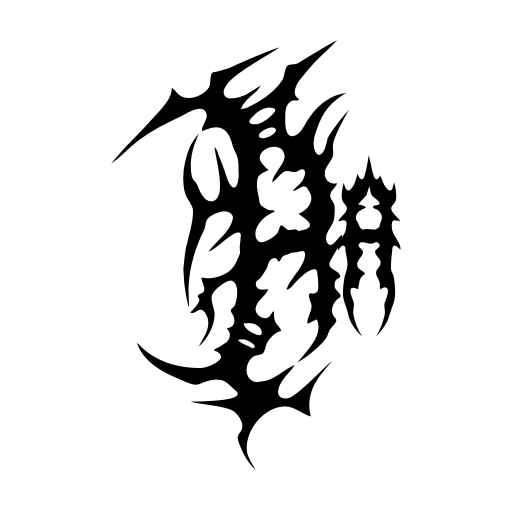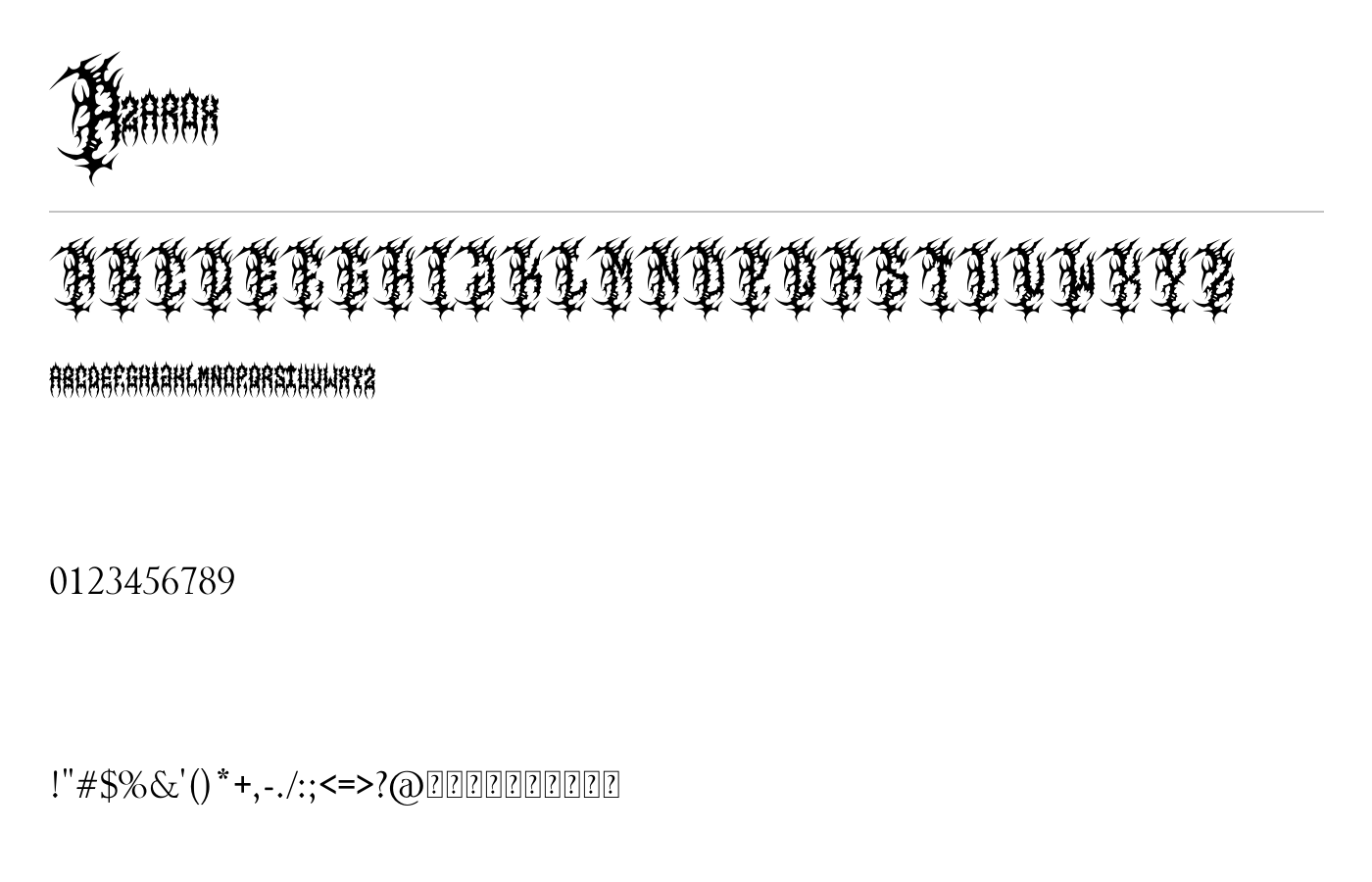
Azarox is a highly ornamental, decorative font with a gothic and tribal flair, characterized by dense, sharp, and intricate letterforms that create a dramatic and intense visual impact. Its heavy weight and complex shapes make it ideal for bold headlines, logos, or themes that aim to evoke mystery, darkness, or an edgy atmosphere, though it is less suited for body text due to its elaborate style. This font works best in creative projects that demand a striking, unconventional aesthetic.
Azarox Font
About Azarox Font
| Font family | Azarox Font |
| Designer | Hamber Perdiansyah |